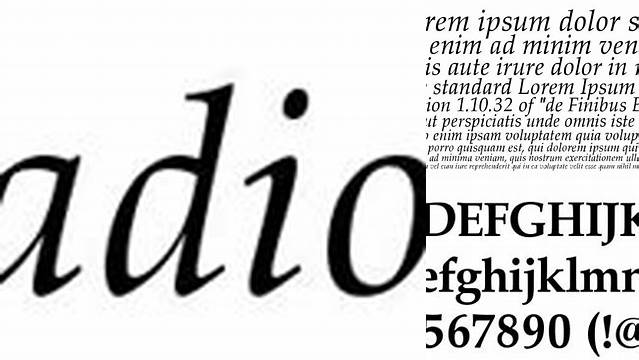
Introduction: The Allure of Palladio Bold Italic Font
When it comes to typography, the Palladio Bold Italic font stands out as a timeless classic, guys. Its elegant curves and strong presence make it a favorite among designers and creatives alike. If you're looking to add a touch of sophistication and flair to your projects, finding a Palladio Bold Italic font free download is a fantastic starting point. But let's dive deeper into what makes this font so special and how you can get your hands on it without spending a dime. This article will provide you with everything you need to know about the Palladio Bold Italic font, including its history, characteristics, uses, and where to find it for free. Whether you're a seasoned designer or just starting out, understanding the nuances of this font will help you make informed decisions about your typography and ensure your projects always look their best. We'll also explore various resources and websites where you can safely download this font, as well as tips for using it effectively in your designs. So, grab your favorite beverage, settle in, and let's explore the wonderful world of the Palladio Bold Italic font! Understanding the Palladio Bold Italic font involves more than just appreciating its aesthetic appeal; it's also about recognizing its historical significance and the technical aspects that contribute to its unique character. This font, with its roots in classical typography, has been adapted and refined over the years to meet the demands of modern design. Its bold italic style is particularly notable for its ability to convey both strength and elegance, making it suitable for a wide range of applications. From branding and advertising to editorial design and web content, the Palladio Bold Italic font can add a touch of class and professionalism. However, it's essential to use it judiciously, as overusing any distinctive font can dilute its impact. By understanding its history and characteristics, you can make informed decisions about when and how to incorporate it into your projects, ensuring it enhances your message rather than overshadowing it.
What is Palladio Bold Italic Font?
Okay, so what exactly is the Palladio Bold Italic font? This typeface is a variation of the classic Palladio font family, known for its readability and elegant design. The bold version adds weight and emphasis, while the italic styling injects a sense of movement and sophistication. Together, they create a font that's both eye-catching and highly legible. It's like the superhero of fonts – strong, stylish, and always ready to save the day! Let's break it down further, shall we? The Palladio font family is inspired by the work of the renowned Italian Renaissance architect Andrea Palladio, whose designs were celebrated for their harmony and proportion. This influence is evident in the font's balanced letterforms and classical proportions. The bold weight adds a significant visual impact, making it perfect for headlines, titles, and other elements that need to stand out. The italic styling, characterized by its slanted letters and flowing curves, adds a touch of elegance and dynamism. When combined, these elements create a typeface that is both authoritative and refined. But why is this font so popular, and what makes it a go-to choice for designers? One of the key reasons is its versatility. The Palladio Bold Italic font can be used in a variety of contexts, from formal business documents to creative marketing materials. Its legibility makes it suitable for body text, while its bold italic styling makes it ideal for headings and subheadings. Moreover, its timeless design ensures it never looks dated, making it a reliable choice for projects that need to maintain a sense of sophistication over time. In the digital age, the Palladio Bold Italic font has also proven its adaptability. It renders well on screens of all sizes and resolutions, ensuring your message is always clear and readable. This is particularly important in web design, where fonts need to be both aesthetically pleasing and functional. Overall, the Palladio Bold Italic font is a powerful tool in any designer's toolkit, offering a blend of classic elegance and modern functionality. Its bold italic styling sets it apart, making it a font that truly deserves its place in the pantheon of great typefaces.
Why Use Palladio Bold Italic?
So, why should you consider using Palladio Bold Italic in your projects? The answer is simple: it’s a versatile font that adds a touch of class to any design. Whether you're working on a website, a brochure, or a presentation, this font can make your text stand out. The combination of boldness and italics creates a unique emphasis, perfect for headings, quotes, or call-outs. Plus, the elegant design ensures your message is delivered with style. Let's explore the various reasons why choosing Palladio Bold Italic can be a game-changer for your designs. One of the primary advantages is its ability to command attention. The bold weight of the font ensures that it stands out on the page or screen, making it ideal for headlines and titles. This is particularly useful in marketing materials, where you need to grab the reader's attention quickly and effectively. In addition to its boldness, the italic styling adds a touch of sophistication and elegance. The slanted letters create a sense of movement and dynamism, making the text visually engaging. This makes it a great choice for quotes, captions, and other elements that need to stand out without being overwhelming. But it's not just about aesthetics; the Palladio Bold Italic font is also highly legible. This is crucial for ensuring that your message is clear and easy to read. Whether you're designing a website or a printed document, readability should always be a top priority. The Palladio font family, in general, is known for its legibility, and the bold italic version maintains this quality while adding extra visual flair. Another compelling reason to use Palladio Bold Italic is its versatility. It works well in a variety of contexts, from formal business documents to creative design projects. Its timeless design ensures it never looks out of place, making it a reliable choice for long-term branding and communication strategies. Moreover, the Palladio Bold Italic font can be effectively paired with other fonts to create a cohesive and visually appealing design. It complements both serif and sans-serif fonts, giving you a wide range of options for your typography palette. Overall, the Palladio Bold Italic font offers a compelling combination of style, emphasis, and legibility, making it a valuable asset for any designer or communicator. Its ability to add a touch of class and sophistication to your projects makes it a font worth considering for your next design endeavor.
Tips for Using Palladio Bold Italic Effectively
Now that you've got your Palladio Bold Italic font, let's talk about how to use it effectively. This font is powerful, but like any tool, it needs to be used correctly to achieve the best results. Here are some tips to keep in mind:
- Use it sparingly: Overusing bold italic can make your text look cluttered. Reserve it for key words, headings, or short phrases.
- Pair it wisely: Palladio Bold Italic works well with both serif and sans-serif fonts. Experiment to find the best combination for your project.
- Consider context: This font is elegant and sophisticated, so it's best suited for projects that need a touch of class.
Let's dive deeper into these tips and explore how to make the most of Palladio Bold Italic in your designs. Using Palladio Bold Italic sparingly is crucial for maintaining its impact. Overusing any distinctive font can dilute its effectiveness and make your design look cluttered. Instead, focus on using it strategically to highlight key elements, such as headings, subheadings, or important phrases. This will draw the reader's attention to the most important parts of your message without overwhelming them. When pairing Palladio Bold Italic with other fonts, consider the overall tone and style of your project. This font works well with both serif and sans-serif fonts, but the specific combination you choose will depend on the context. For a classic and elegant look, try pairing it with a traditional serif font for body text. For a more modern and minimalist design, consider using a clean sans-serif font. Experimenting with different font pairings is key to finding the perfect balance for your project. Context is another important factor to consider when using Palladio Bold Italic. This font exudes elegance and sophistication, making it ideal for projects that need a touch of class. It's a great choice for invitations, formal documents, and high-end branding materials. However, it might not be the best fit for projects that require a more casual or playful tone. Think about the message you're trying to convey and choose fonts that align with that message. In addition to these general tips, there are also some technical aspects to consider when using Palladio Bold Italic. Pay attention to the font size and line spacing to ensure optimal readability. Adjust the kerning and tracking to fine-tune the spacing between letters and words. These small adjustments can make a big difference in the overall appearance of your typography. Finally, remember to always test your designs across different media and devices. A font that looks great on your computer screen might not render as well in print or on a mobile device. By testing your designs thoroughly, you can ensure that your typography looks its best in any context. In conclusion, using Palladio Bold Italic effectively requires a thoughtful approach and attention to detail. By using it sparingly, pairing it wisely, and considering the context of your project, you can harness its power to create stunning and impactful designs.
Alternatives to Palladio Bold Italic
If you can't find a Palladio Bold Italic font free download, or if you're looking for something similar, don't worry! There are plenty of alternatives out there. Fonts like Garamond Bold Italic, Times New Roman Bold Italic, and Palatino Bold Italic offer a similar aesthetic. You can also explore other serif fonts with a bold italic option to find the perfect fit for your project, guys. Let's delve into some specific alternatives and discuss their unique characteristics. Garamond Bold Italic is a classic serif font that shares many similarities with Palladio Bold Italic. It's known for its elegance and readability, making it a great choice for both print and digital projects. Garamond's italic style is particularly graceful, adding a touch of sophistication to any design. Times New Roman Bold Italic is another widely used serif font that offers a similar aesthetic. While it's often considered a more standard choice, it's highly legible and versatile. Times New Roman's bold italic version provides a strong and clear emphasis, making it suitable for headlines and subheadings. Palatino Bold Italic is a humanist serif font that combines classical proportions with a contemporary feel. It's known for its warm and inviting appearance, making it a great choice for projects that require a friendly and approachable tone. Palatino's italic style is particularly distinctive, with flowing curves and elegant details. In addition to these specific fonts, there are many other serif fonts with bold italic options that you can explore. Consider experimenting with different typefaces to find the perfect fit for your project. Some other options to consider include Baskerville Bold Italic, Caslon Bold Italic, and Jenson Bold Italic. When choosing an alternative to Palladio Bold Italic, it's important to consider the overall style and tone of your project. Think about the message you're trying to convey and choose a font that aligns with that message. Also, consider the legibility of the font, especially if you're using it for body text. A font that looks beautiful but is difficult to read won't serve your project well. Another factor to consider is the availability of the font. If you're working on a project that will be shared with others, it's important to choose a font that is widely available or that can be easily embedded. This will ensure that your design looks consistent across different devices and platforms. In conclusion, while Palladio Bold Italic is a beautiful and versatile font, there are plenty of alternatives that offer a similar aesthetic. By exploring different options and considering the specific needs of your project, you can find the perfect typeface to enhance your design.
The Palladio Bold Italic font is a fantastic choice for adding elegance and emphasis to your designs. While finding a Palladio Bold Italic font free download requires careful research and attention to licensing, the effort is well worth it. Remember to use it judiciously, pair it thoughtfully, and consider its context to maximize its impact. And if you can't find it, don't forget there are plenty of great alternatives out there! So go forth and create something beautiful, guys! Ultimately, the Palladio Bold Italic font stands as a testament to the power of typography in design. Its unique blend of boldness, elegance, and readability makes it a valuable asset for any creative project. Whether you're designing a website, creating marketing materials, or crafting a formal document, this font can help you convey your message with style and sophistication. However, the key to using any font effectively lies in understanding its strengths and limitations. Palladio Bold Italic is no exception. By using it sparingly, pairing it wisely, and considering its context, you can harness its full potential and create designs that are both visually stunning and highly effective. Moreover, the world of typography is vast and diverse, with countless fonts to explore. While Palladio Bold Italic is a great choice, it's just one of many. Don't be afraid to experiment with different typefaces and find the ones that best suit your style and your project's needs. By expanding your typographic toolkit, you'll be able to create even more compelling and impactful designs. In addition to its aesthetic qualities, the Palladio Bold Italic font also offers practical benefits. Its legibility makes it suitable for a wide range of applications, from body text to headlines. Its bold weight ensures that it stands out on the page or screen, making it ideal for highlighting key information. And its italic styling adds a touch of elegance and sophistication, making it a great choice for projects that require a touch of class. So, whether you're a seasoned designer or just starting out, consider adding the Palladio Bold Italic font to your arsenal. With its timeless design and versatile nature, it's a font that will serve you well for years to come. And remember, the best designs are those that combine creativity with careful consideration. By choosing the right fonts and using them effectively, you can elevate your work and create designs that truly stand out.